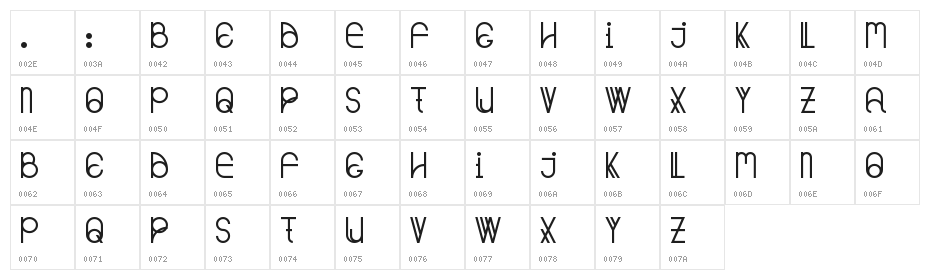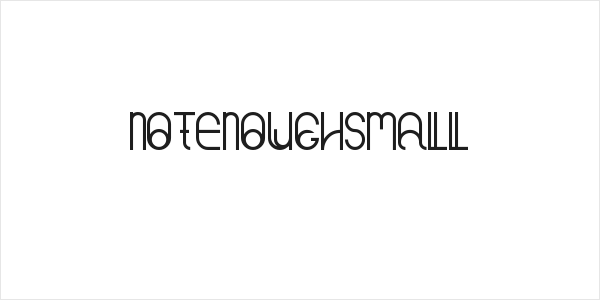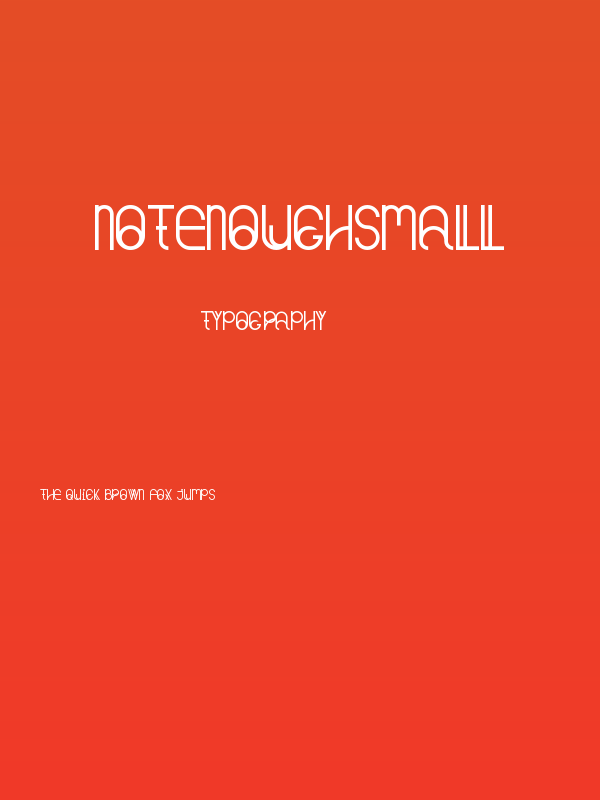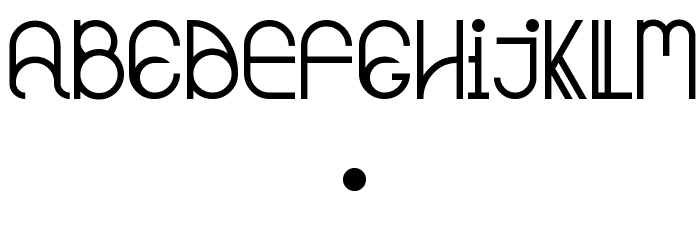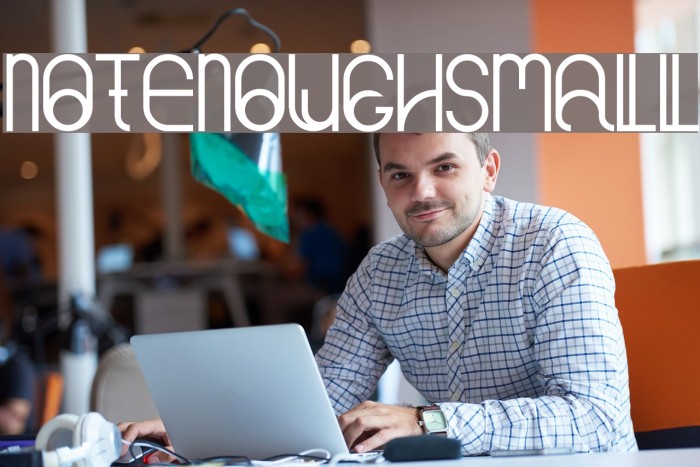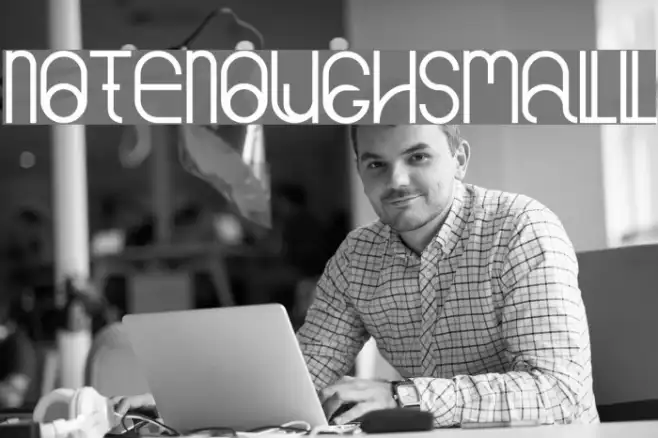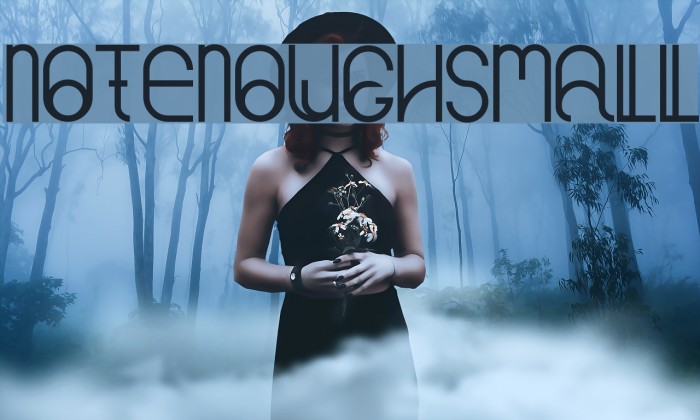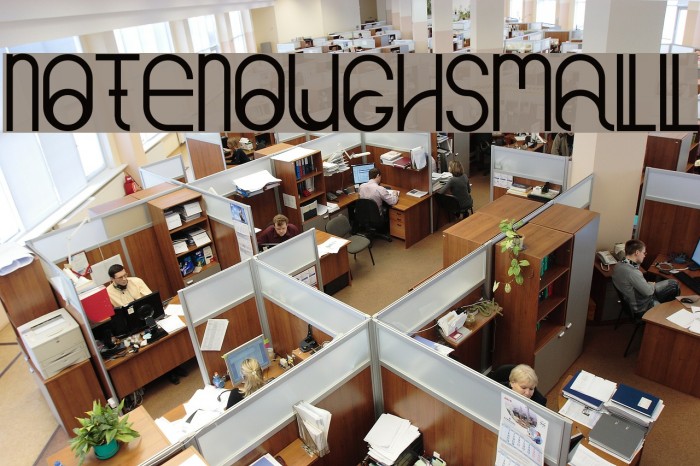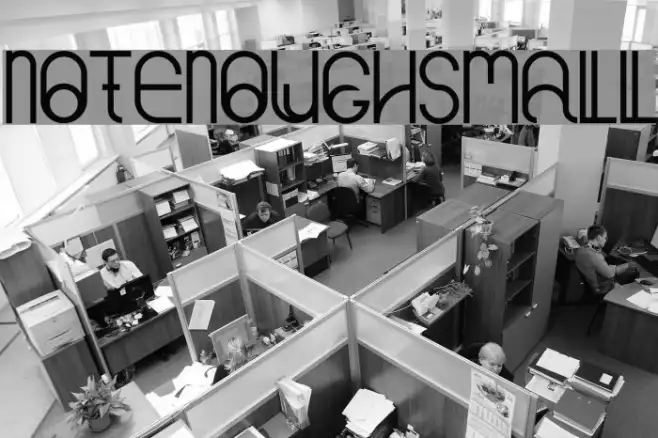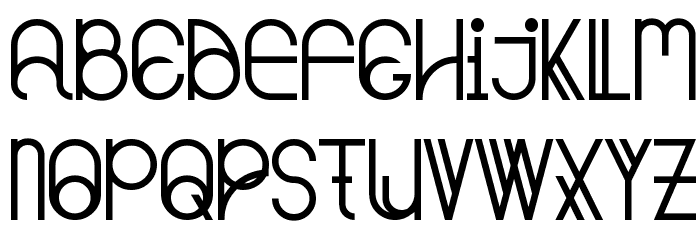
NotEnoughSmall Font
NotEnoughSmall Description
This font features a unique and modern design with a geometric and minimalist aesthetic. The characters are constructed with clean, circular lines and consistent stroke widths, giving it a futuristic and sleek appearance. The uppercase and lowercase letters share similar structures, enhancing the uniformity of the typeface. The font's rounded edges and open counters contribute to its readability and visual appeal. It is well-suited for contemporary design projects that require a distinctive and stylish look.
| Use Case | Headlines, Logos, Digital Interfaces |
| Proposed Projects | Ideal for branding, advertising, digital interfaces, and editorial design where a modern and stylish appearance is desired. |